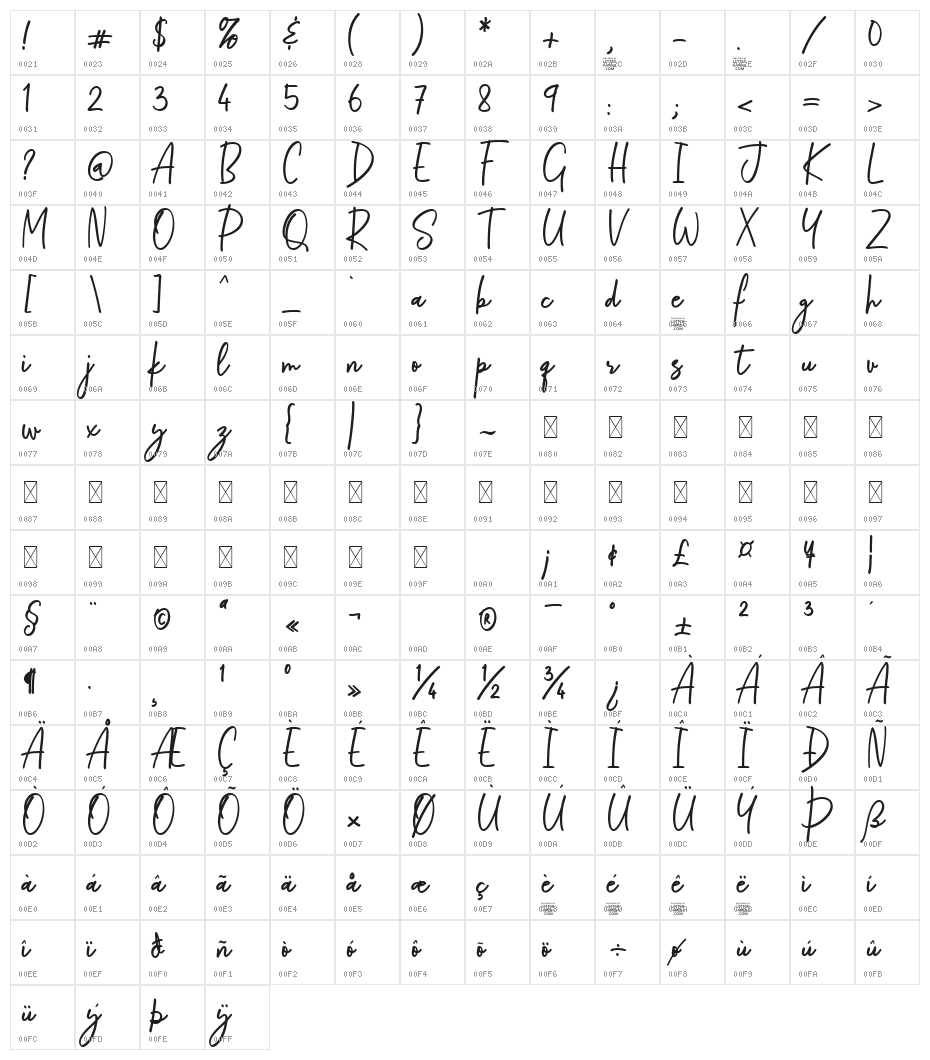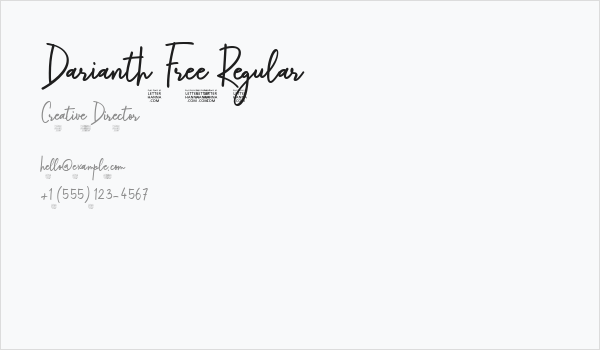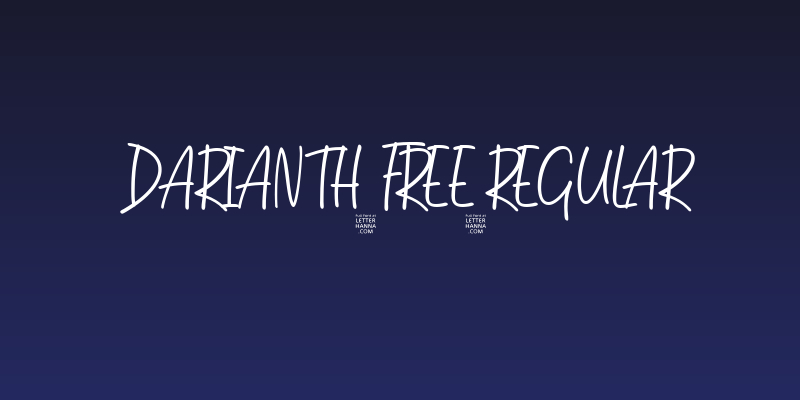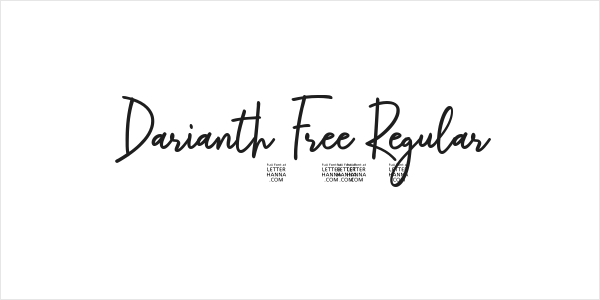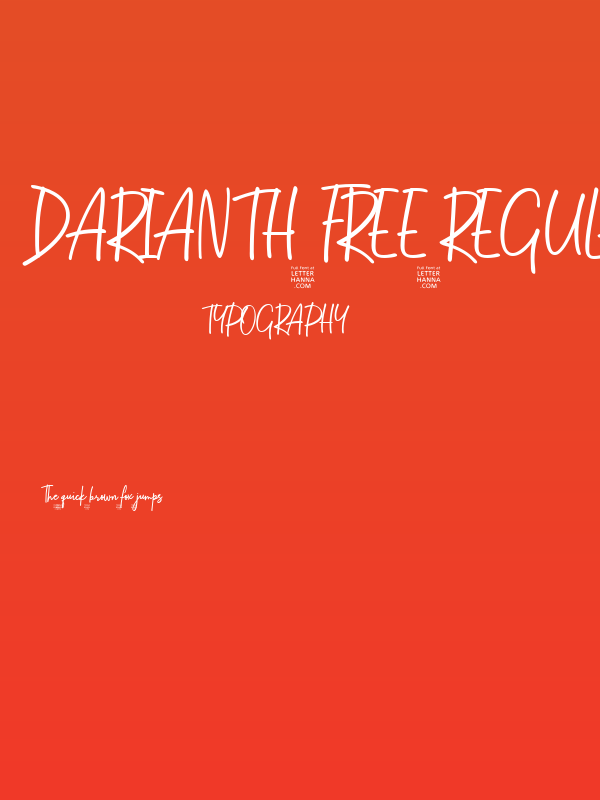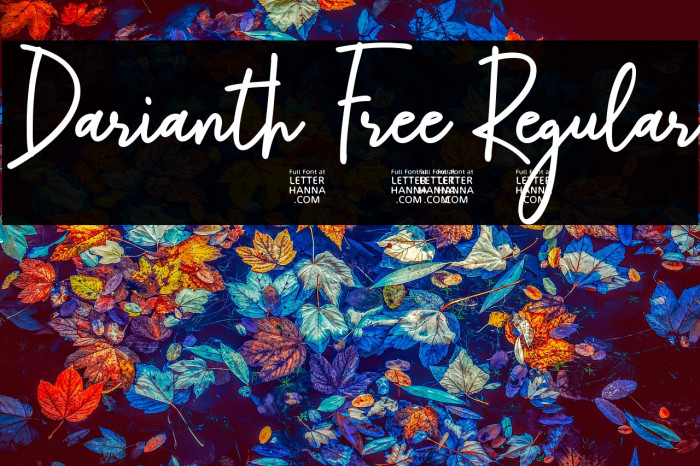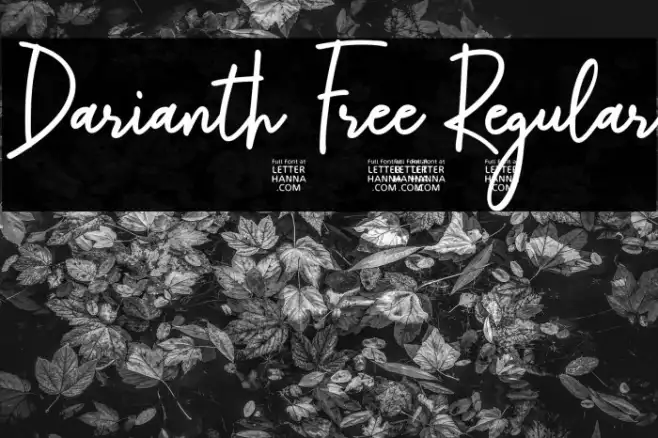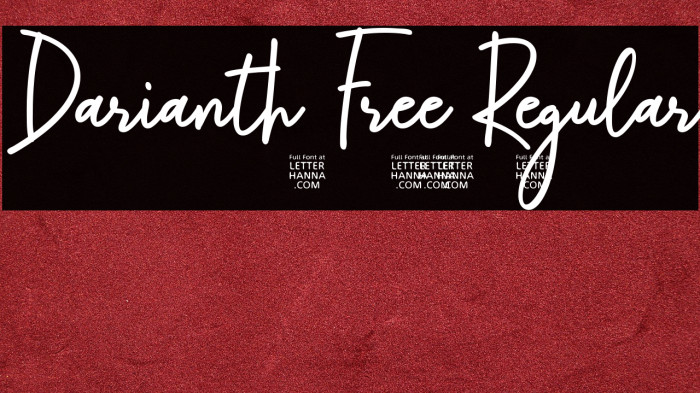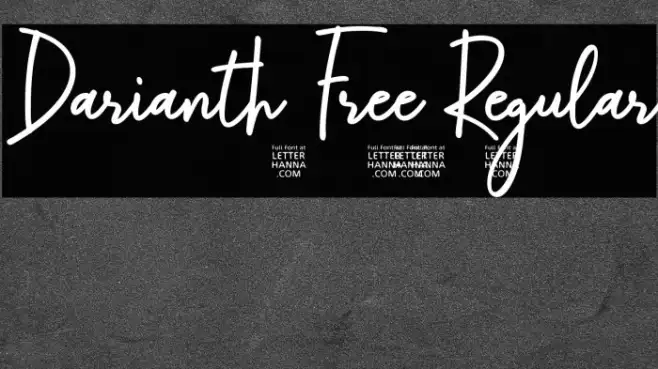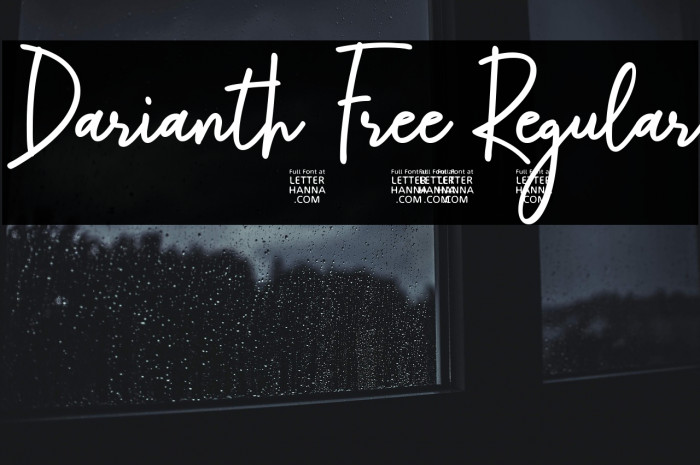
Darianth Free Regular Font
Darianth Free Regular Description
This font features a modern and clean design with a balanced structure. The characters are well-defined with a uniform stroke width, providing a sense of clarity and readability. The uppercase letters are slightly taller, giving a commanding presence, while the lowercase letters maintain a consistent and harmonious flow. The numerals are straightforward and align well with the overall style, ensuring they are easily distinguishable. Special characters are crafted with precision, adding to the font's versatility. The overall appearance is sleek and professional, making it suitable for various applications.
| Proposed Projects | Ideal for corporate branding, website headers, digital presentations, and editorial design. |